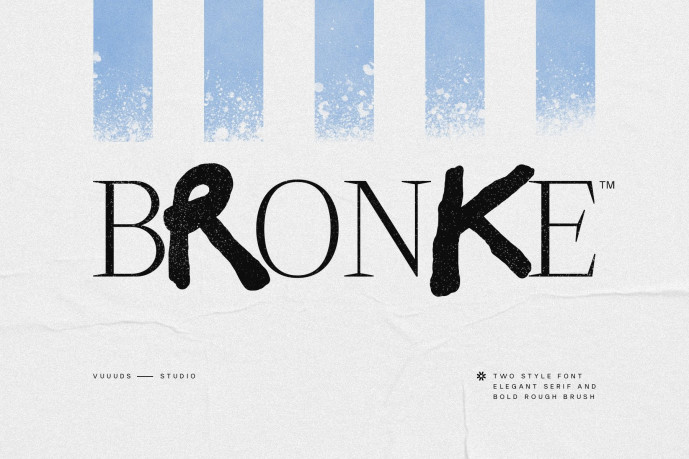
Bronke Serif Font
Designer: vuuuds
Bronke Serif Font – A striking combination of two distinct styles: a classic, elegant Serif font paired with a dynamic, high-impact Rough Bold typeface. This versatile duo is perfect for projects that require both sophistication and raw energy. The combination creates compelling contrast, making it ideal for: logo, sport theme, branding, etc